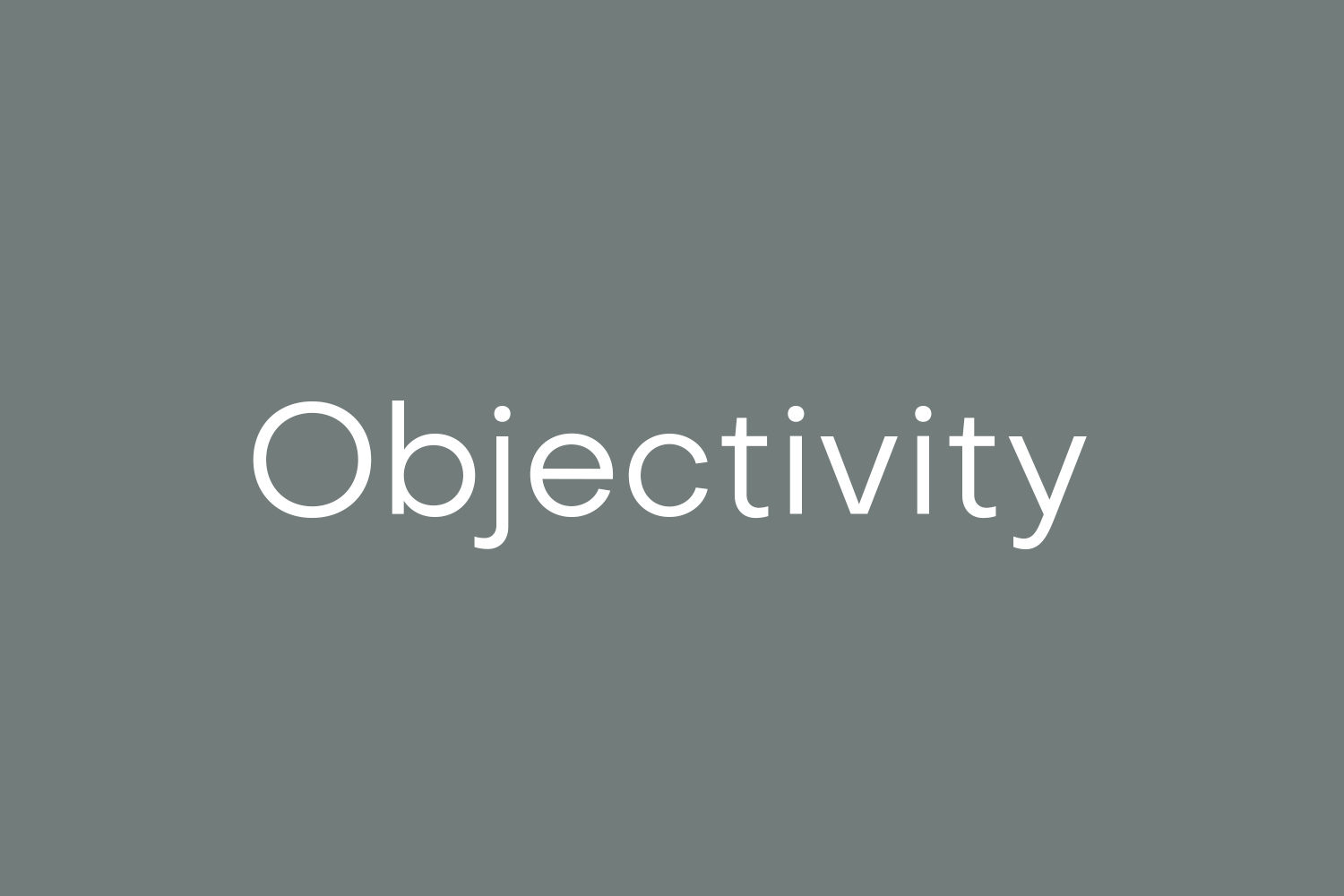
Objectivity Free Font Family is a free geometric font family designed by Alexander Slobzheninov. It was previously known as Objective, but I renamed it in order to avoid confusion with other typefaces with similar names.